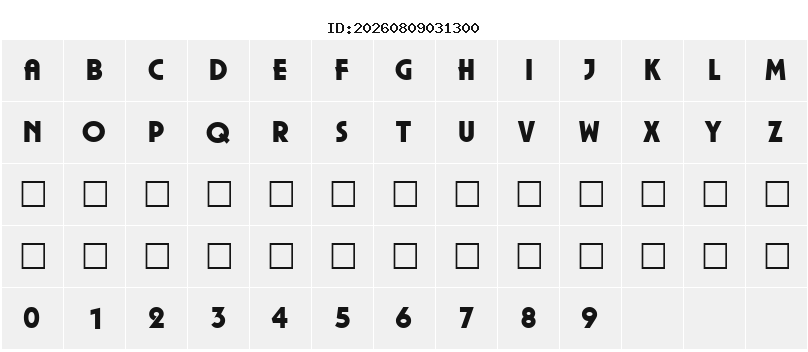
• Font Name: Piazza
• Full Font Name: Piazza Bold
About Piazza.ttf
Piazza.ttf is a modern, elegant sans-serif font designed for ultimate readability and visual harmony. Perfect for branding, headlines, web design, and print materials.